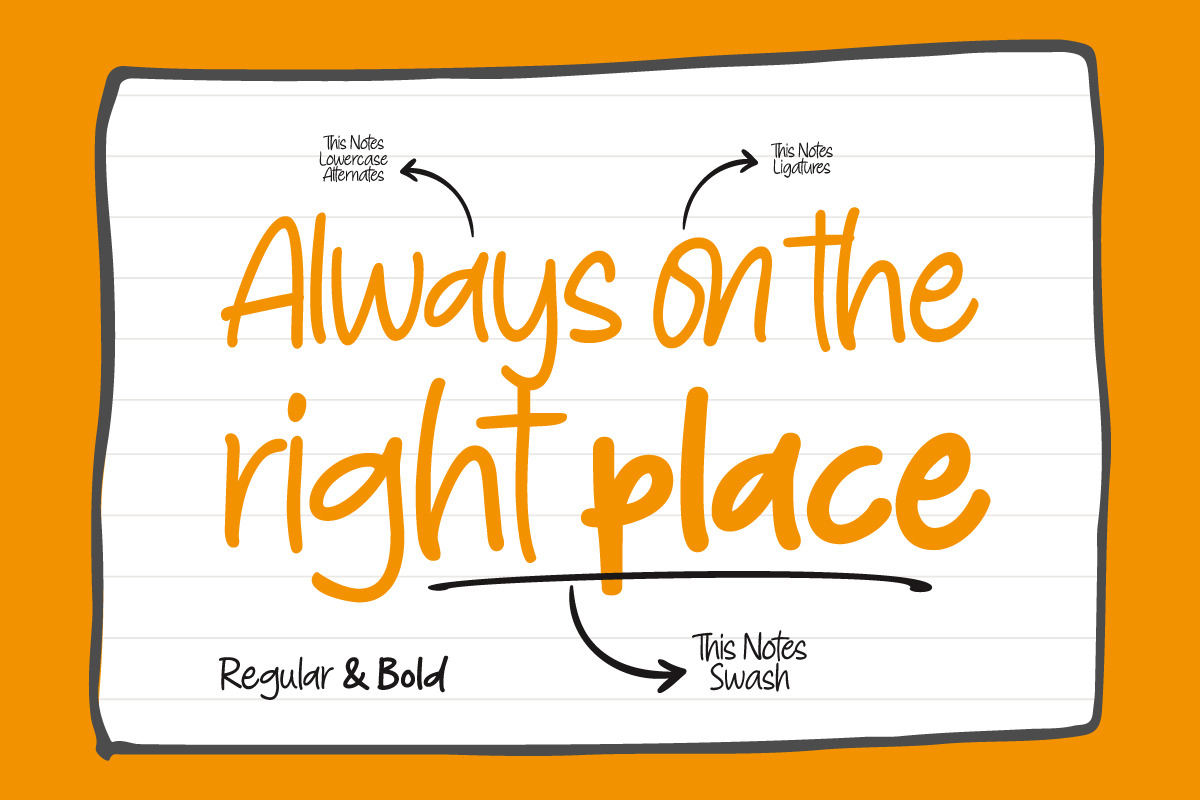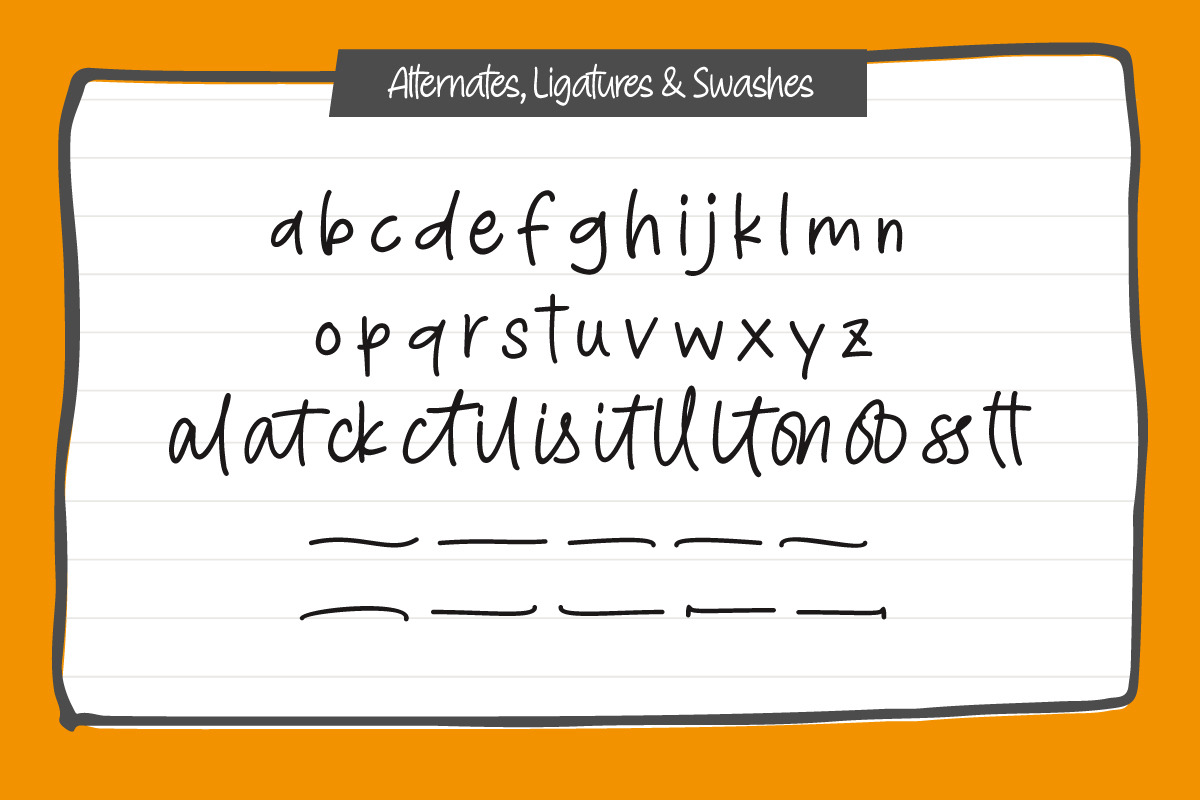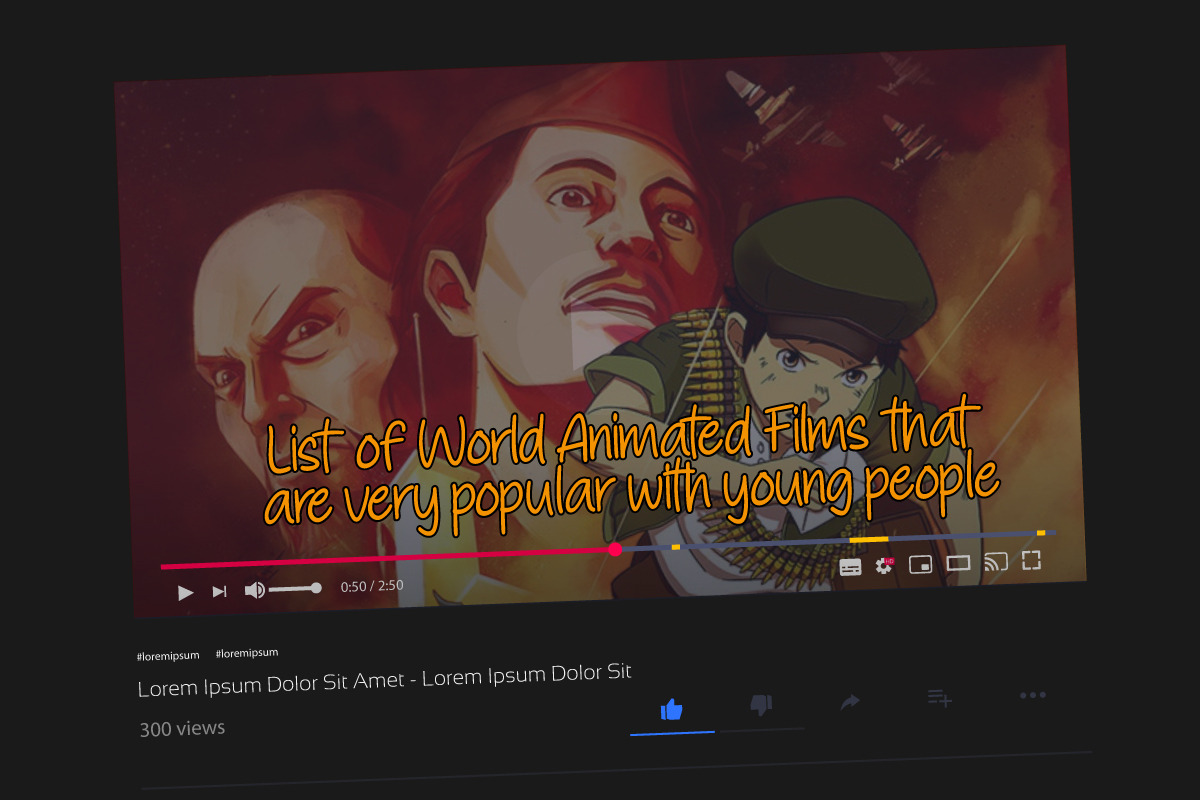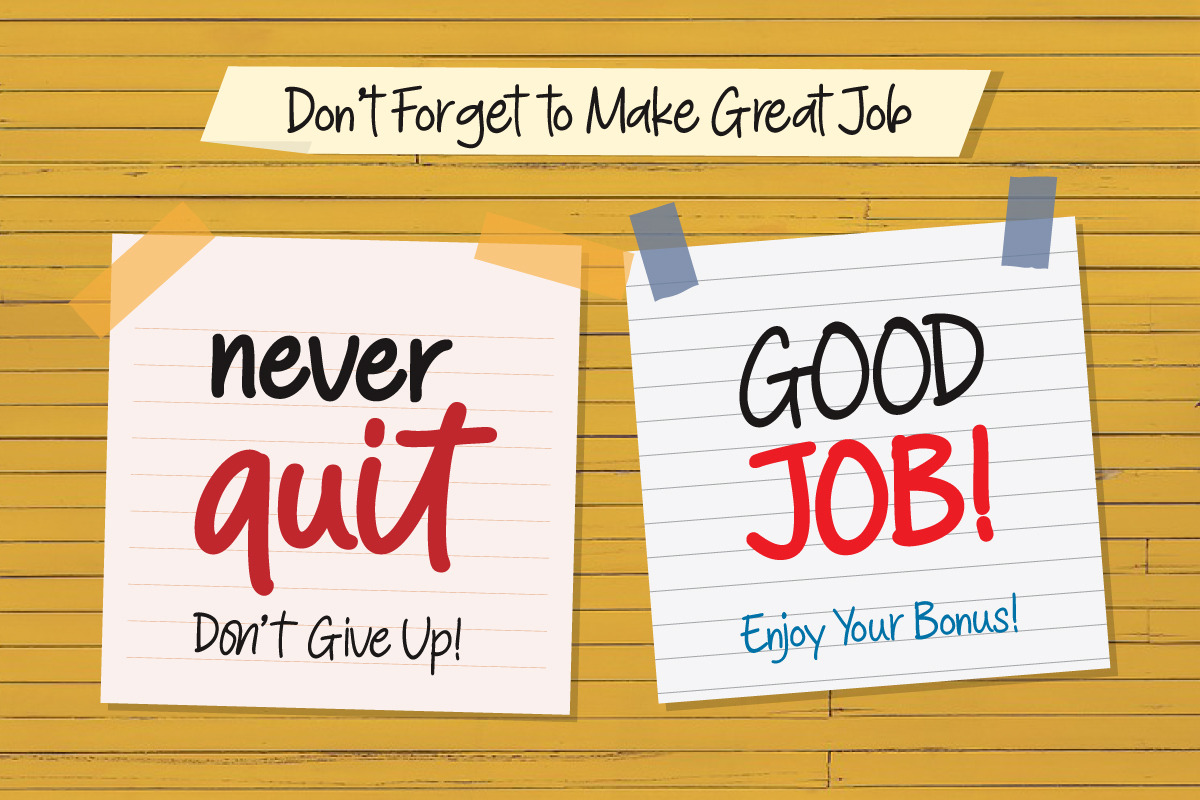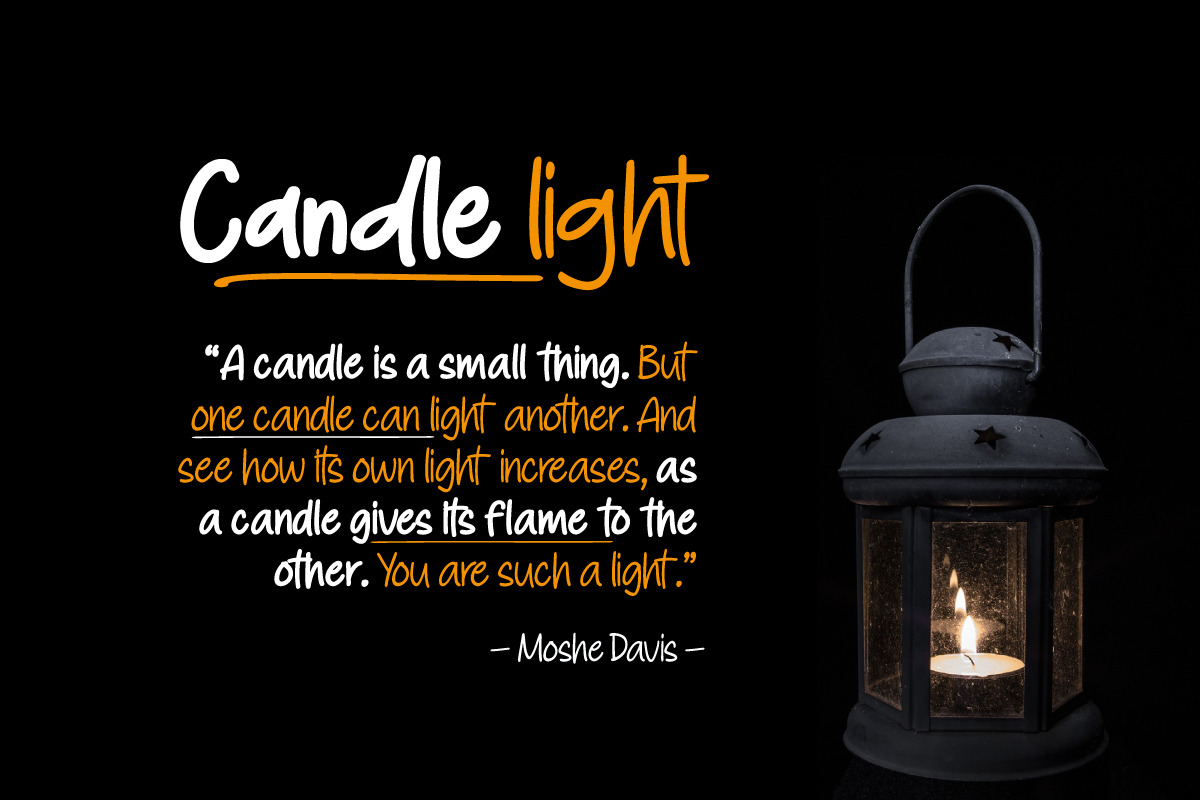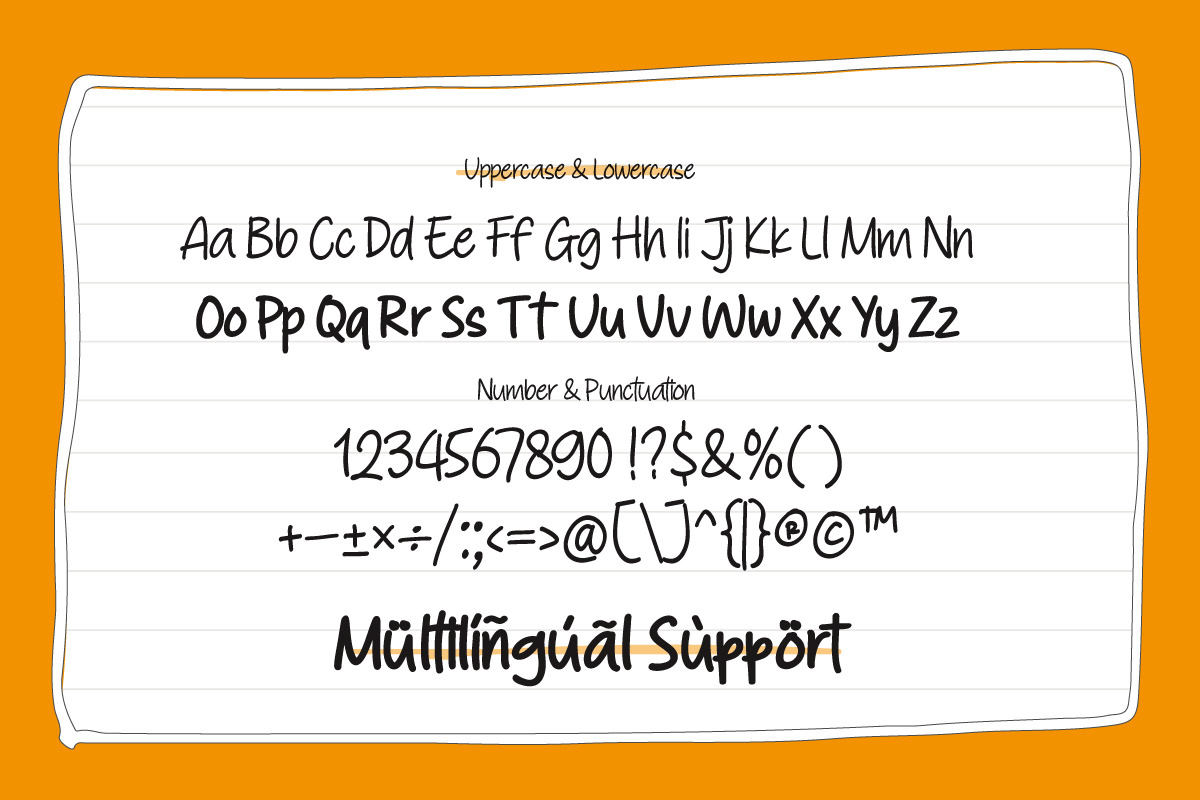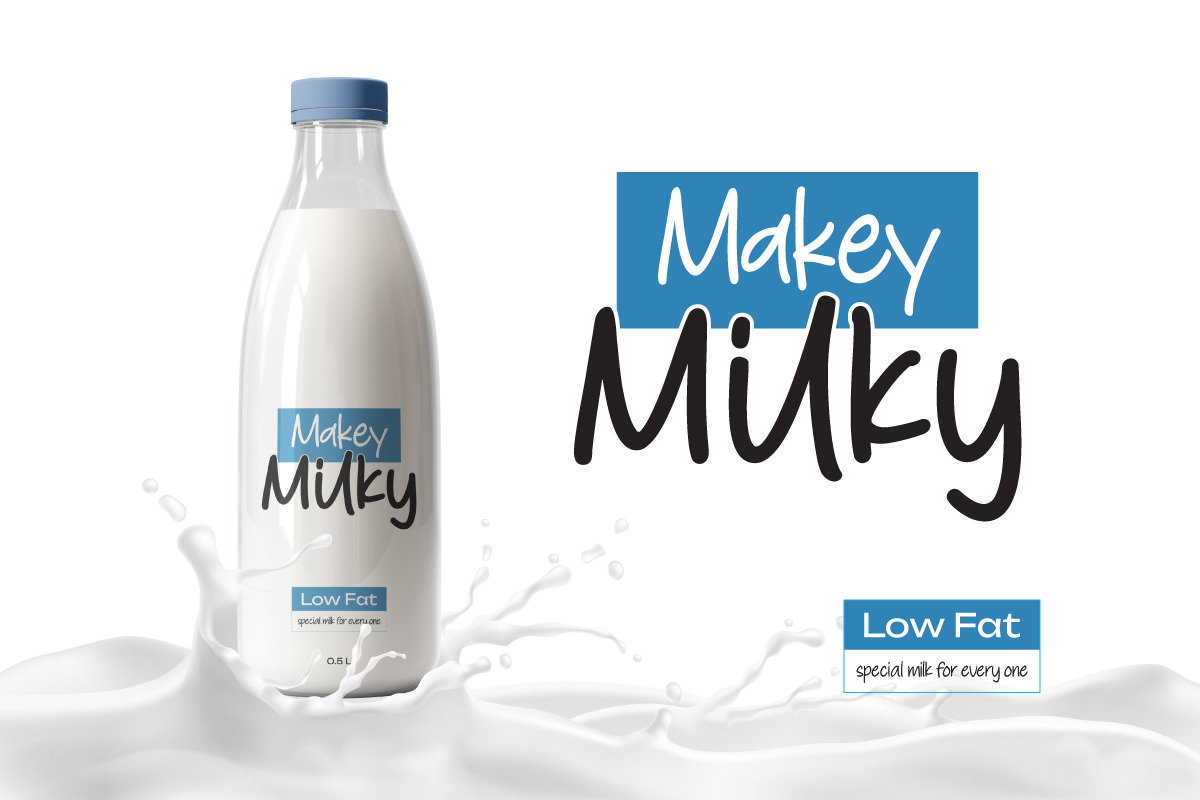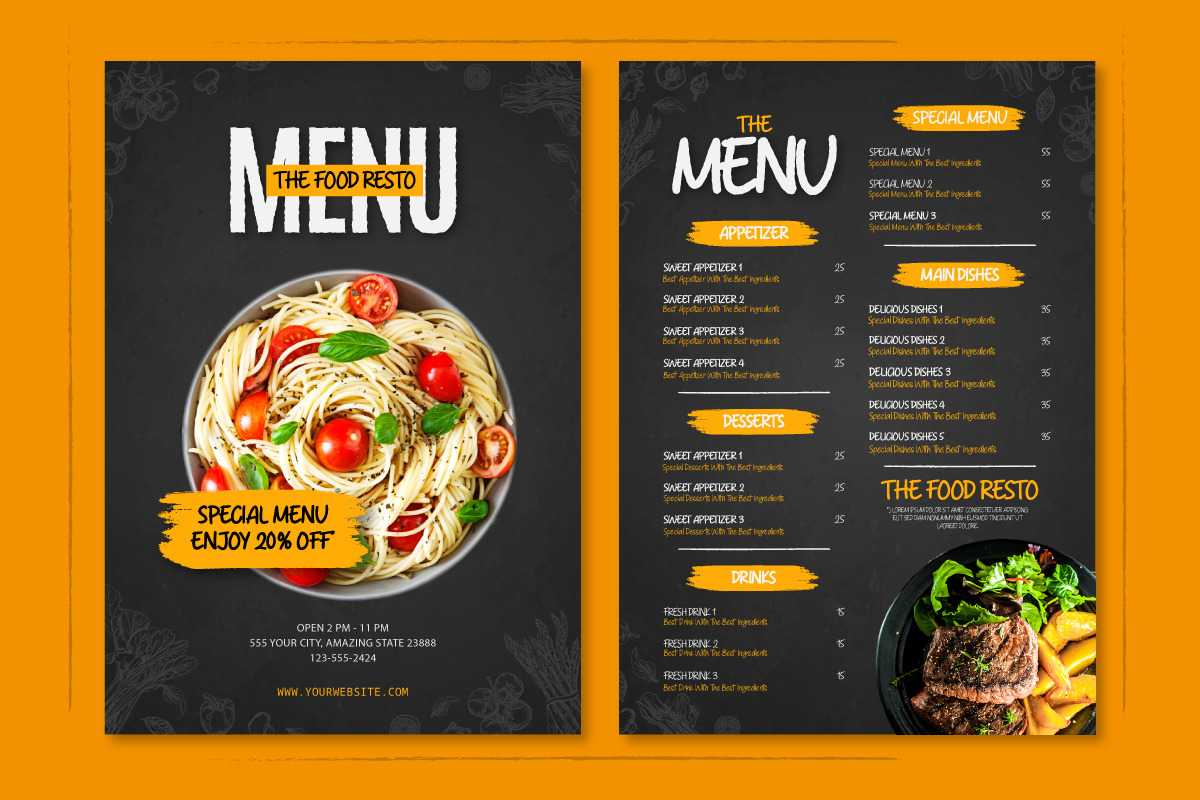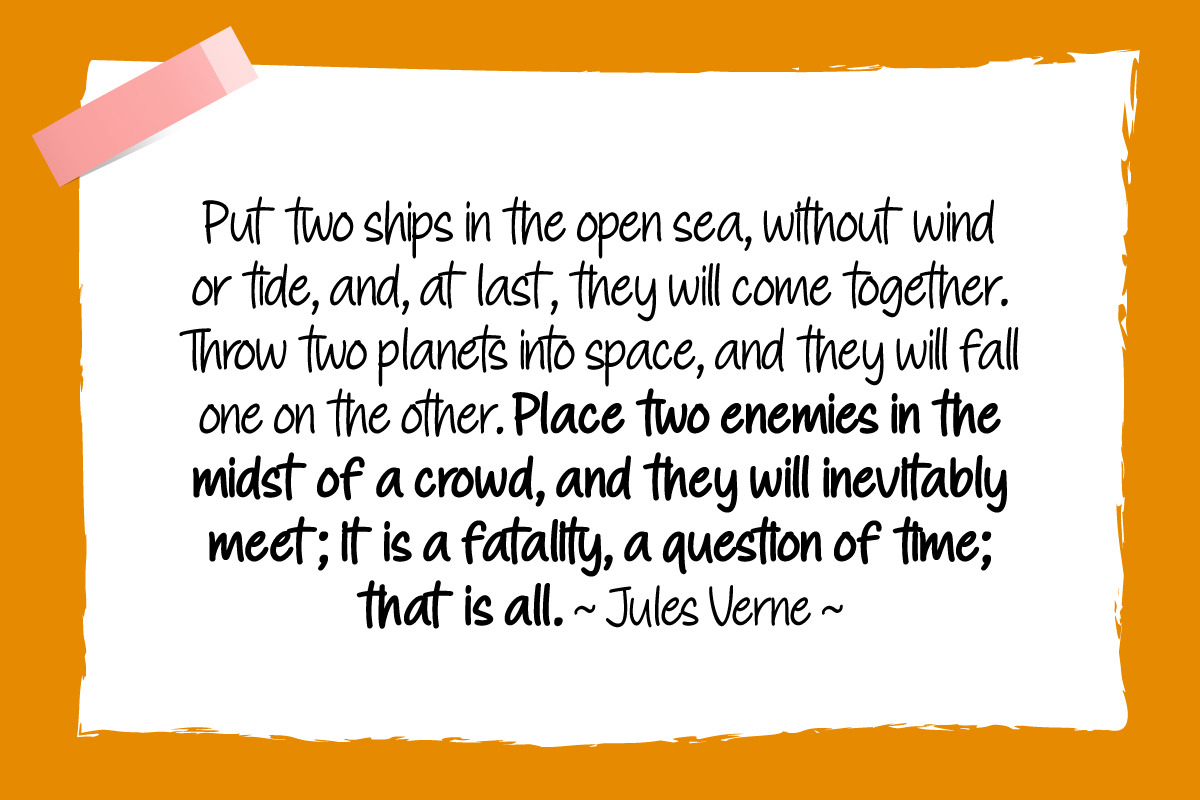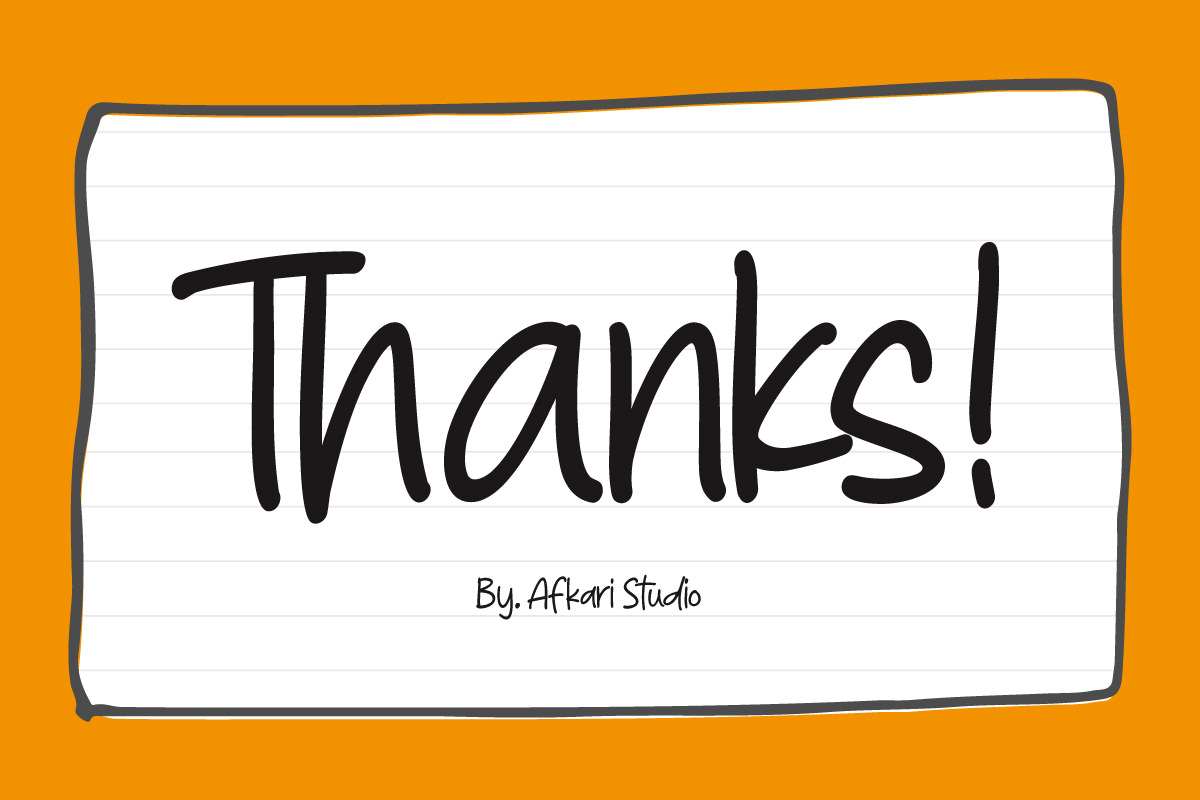
This Notes - Handwritten Marker Note
Introducing This Notes - Handwritten Marker Note Font is a delightful testament to the artistry of handwriting, meticulously crafted to infuse your designs with an authentic, hand-drawn aesthetic. With a distinctive yet versatile style, This Note is poised to enhance a diverse array of design projects, serving as a conduit for creativity and expression.
At its core, This Note embodies the charm of handwritten notes, capturing the nuances and imperfections that make each stroke unique. Its natural flow and effortless elegance make it an ideal choice for a multitude of graphic endeavors, ensuring its relevance across various platforms and applications.
Highlighted Features:
- Complete set of uppercase and lowercase letters, numerals, and punctuation marks
- Unique alternates and ligatures for added character variation
- Multilingual support encompassing characters such as ä, ö, ü, Ä, Ö, Ü, ß, ¿, and ¡
This Note transcends mere functionality; it becomes a catalyst for innovation and inspiration. Its versatility knows no bounds, seamlessly integrating into digital notes, quote designs, book covers, logos, posters, menu layouts, apparel designs, scrapbooks, comic illustrations, magazine headers, and numerous other creative avenues.
The font’s adaptability is matched only by its ability to breathe life into every project it graces. Whether adorning a playful children's illustration or adding a touch of personality to a sophisticated magazine title, This Note lends an air of authenticity that captivates audiences.
In conclusion, This Note Handwritten Marker Note Font isn’t merely a font; it's a conduit for creativity, a bridge between imagination and realization, poised to elevate your projects to new heights. Embrace its charm, leverage its versatility, and allow it to become the catalyst for your creative journey. Unlock the boundless potential of This Note, where each stroke tells a story and every design bears the mark of authenticity.